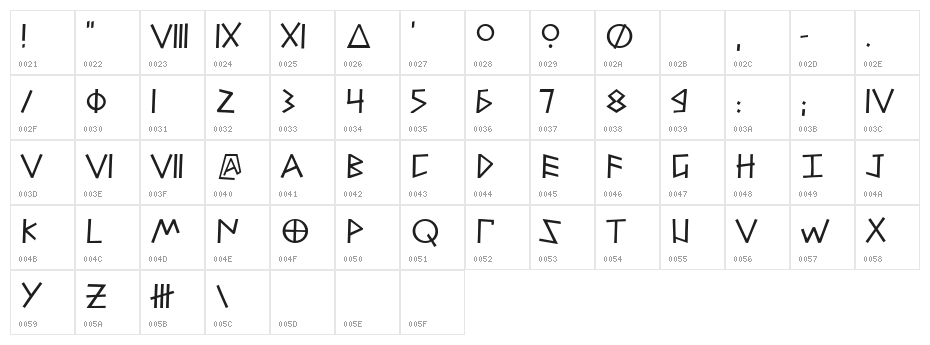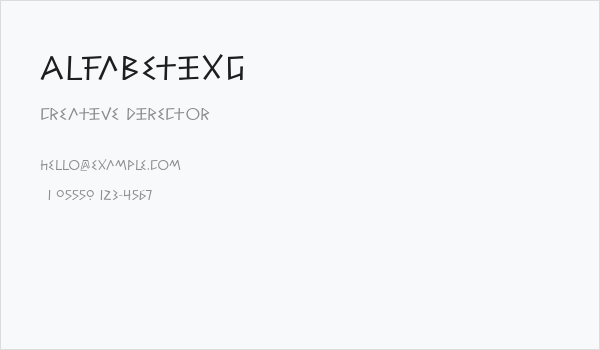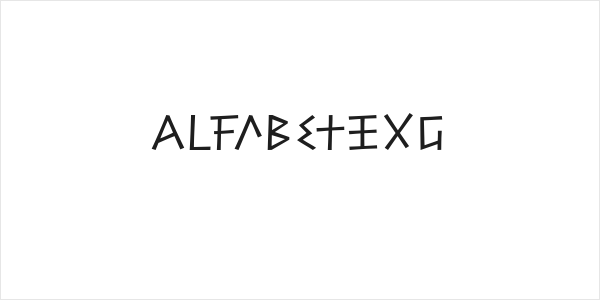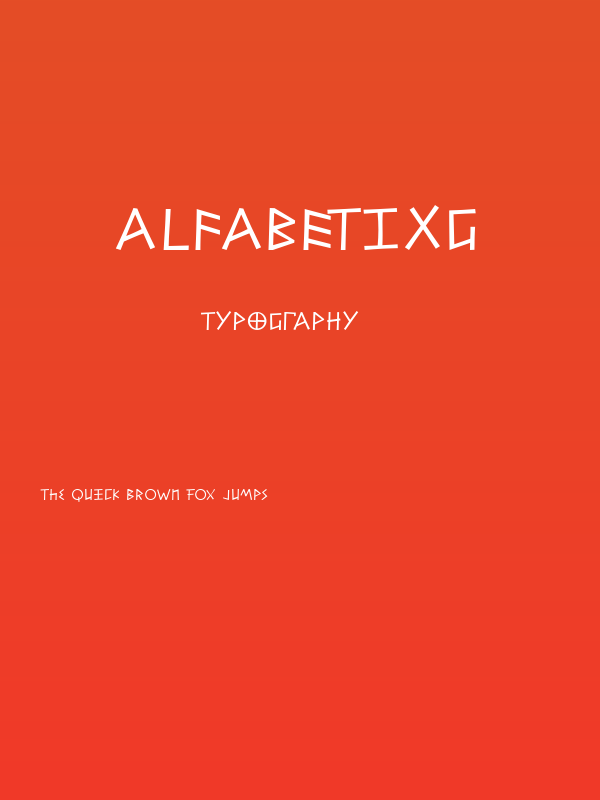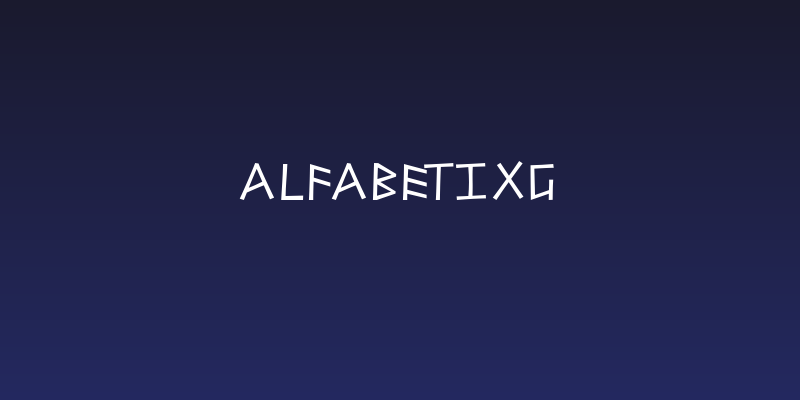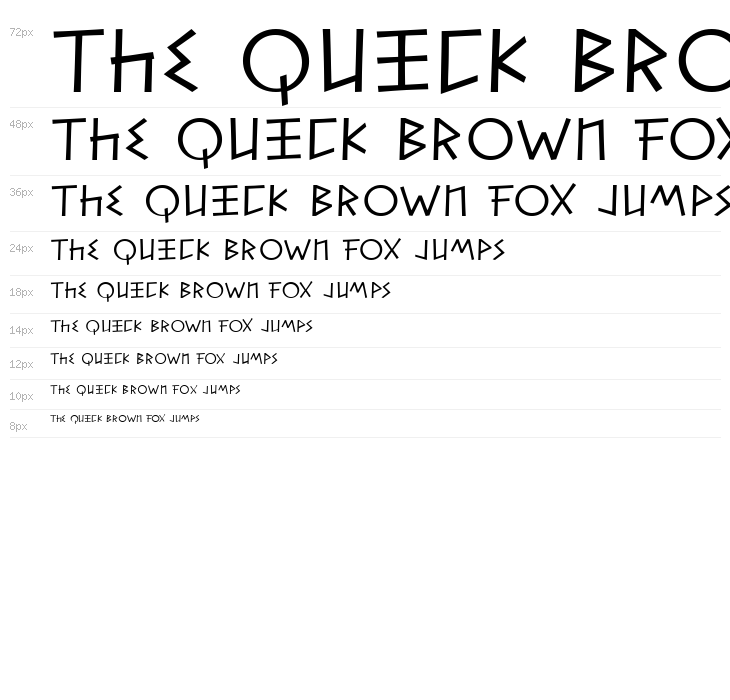
AlfabetixG Font
AlfabetixG Description
This font features a unique, angular design with a geometric flair, reminiscent of ancient runes or tribal markings. The characters are bold and striking, with a consistent thickness throughout, giving it a strong visual presence. The uppercase letters have a distinct, almost architectural quality, with sharp angles and straight lines. The lowercase letters maintain this angular style, ensuring uniformity across the typeface. Numbers and special characters are crafted with the same attention to detail, making them easily recognizable and cohesive with the rest of the font. This typeface is ideal for projects that require a bold, unconventional look.
| Proposed Projects | Perfect for branding, posters, album covers, or any project needing a bold, distinctive typeface. |